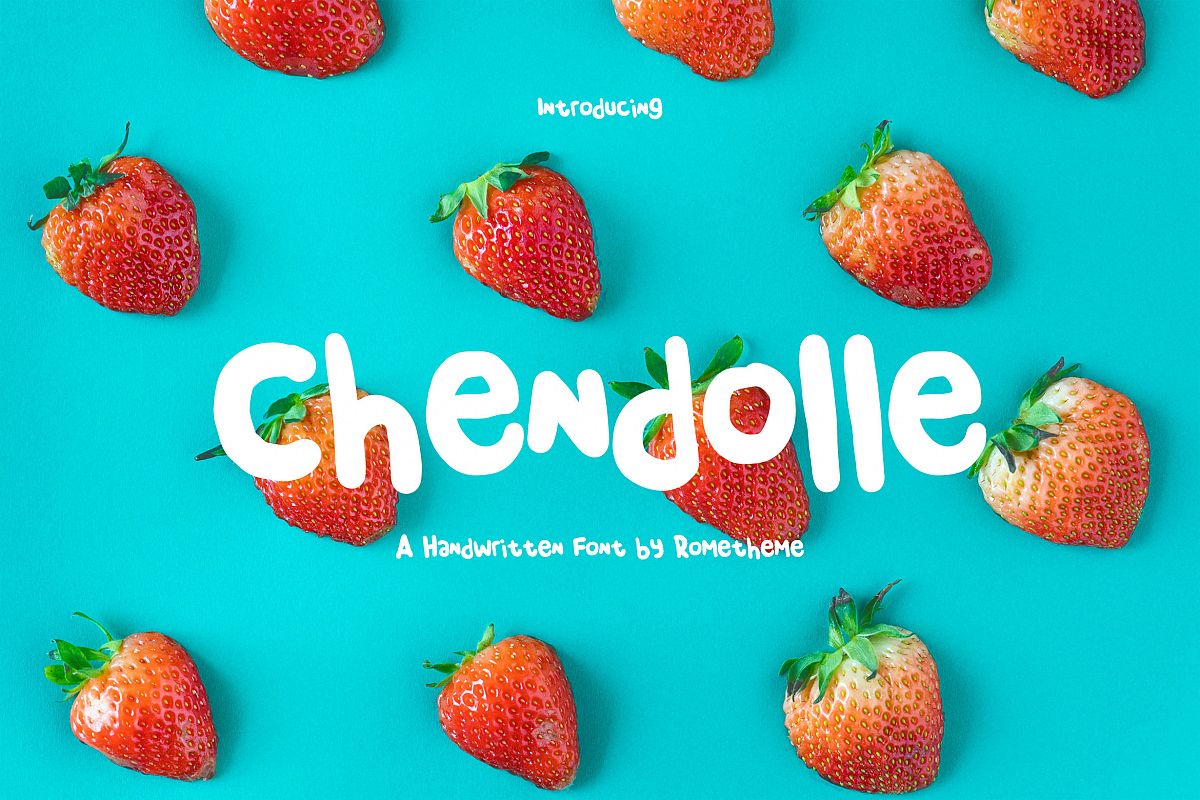
Chendolle - Fun Handwritten Font
Chendolle-Regular
Chendolle is a bold display font, this font looks funny, cute, kids, cartoon, playful, catchy and easy to use.
Chendolle Font is the best choice for your professional design projects, including : logo, poster design, t-shirt, headline, flyer, cd cover album, quotes, business card, branding, magazines, social media, advertisements, product designs, or something that need playful or cartoon looks.
Highlights:
• Basic Latin A-Z and a-z
• Symbols